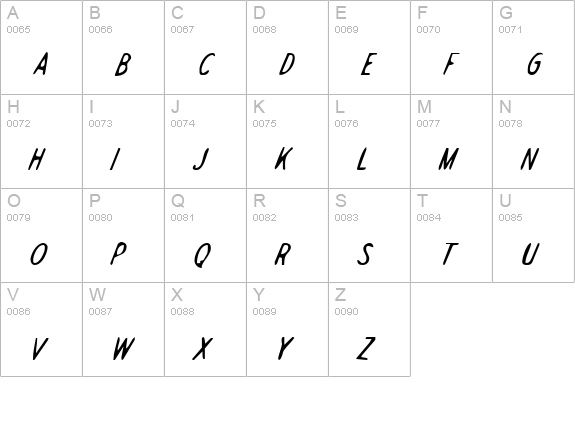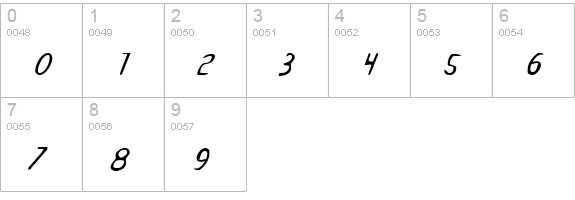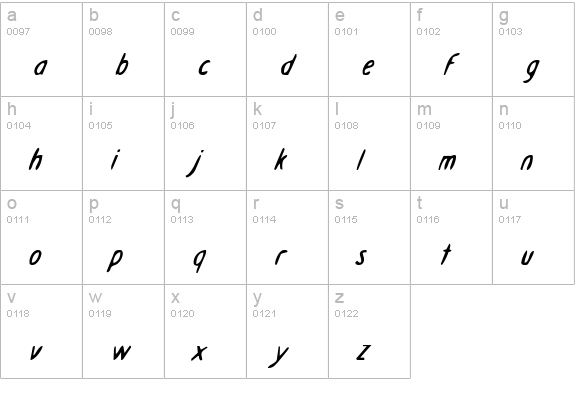
Drafting Table Italic is a distinctive, italic variant in the Drafting typeface family \xE2\x80\x94 well suited to design and typography projects.
Introducing Drafting Table Italic font, a modern and stylish typeface perfect for adding a touch of sophistication to your designs. This elegant font features sleek lines and a slight slant, making it ideal for projects that require a refined aesthetic. With its clean and versatile design, Drafting Table Italic font is suitable for a wide range of uses, from branding and advertising to invitations and social media graphics. The best part? Drafting Table Italic font is completely free to download at FontsMarket.com. Simply visit the website and start using this beautiful font in your projects today. Elevate your designs with the timeless elegance of Drafting Table Italic font and make a lasting impression on your audience.